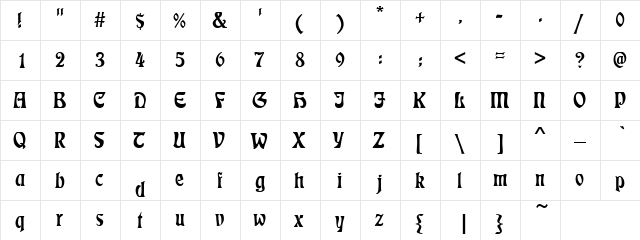
Dutch King Regular
Dutch King Regular Font Preview
Dutch King Regular
Design Context for Dutch King Typeface
Dutch King is a composed and adaptable typeface that performs quietly and consistently across a wide range of design contexts.
Pro Tip: Use Dutch King in both headline and body roles to test its range before committing to a single application.